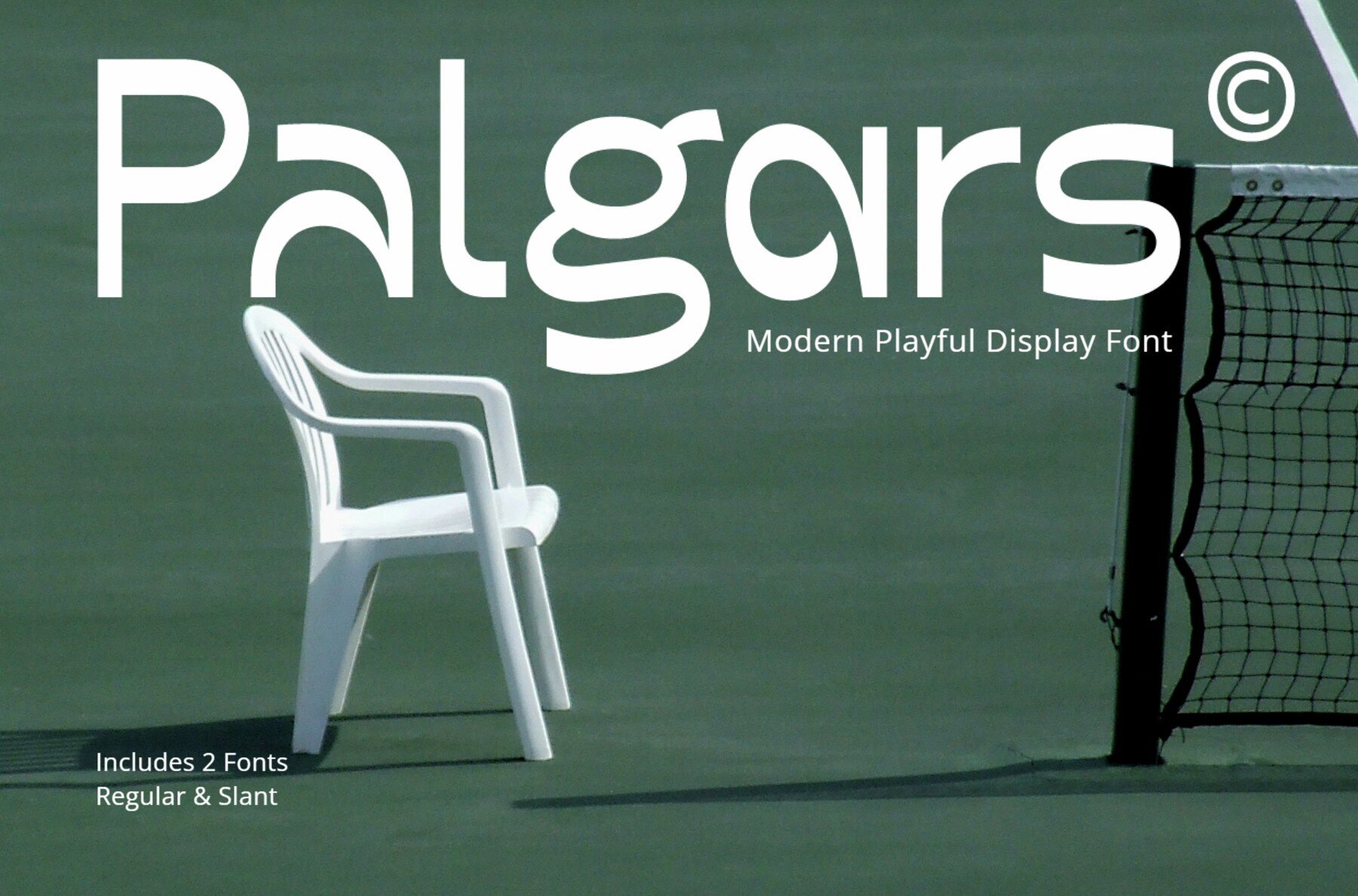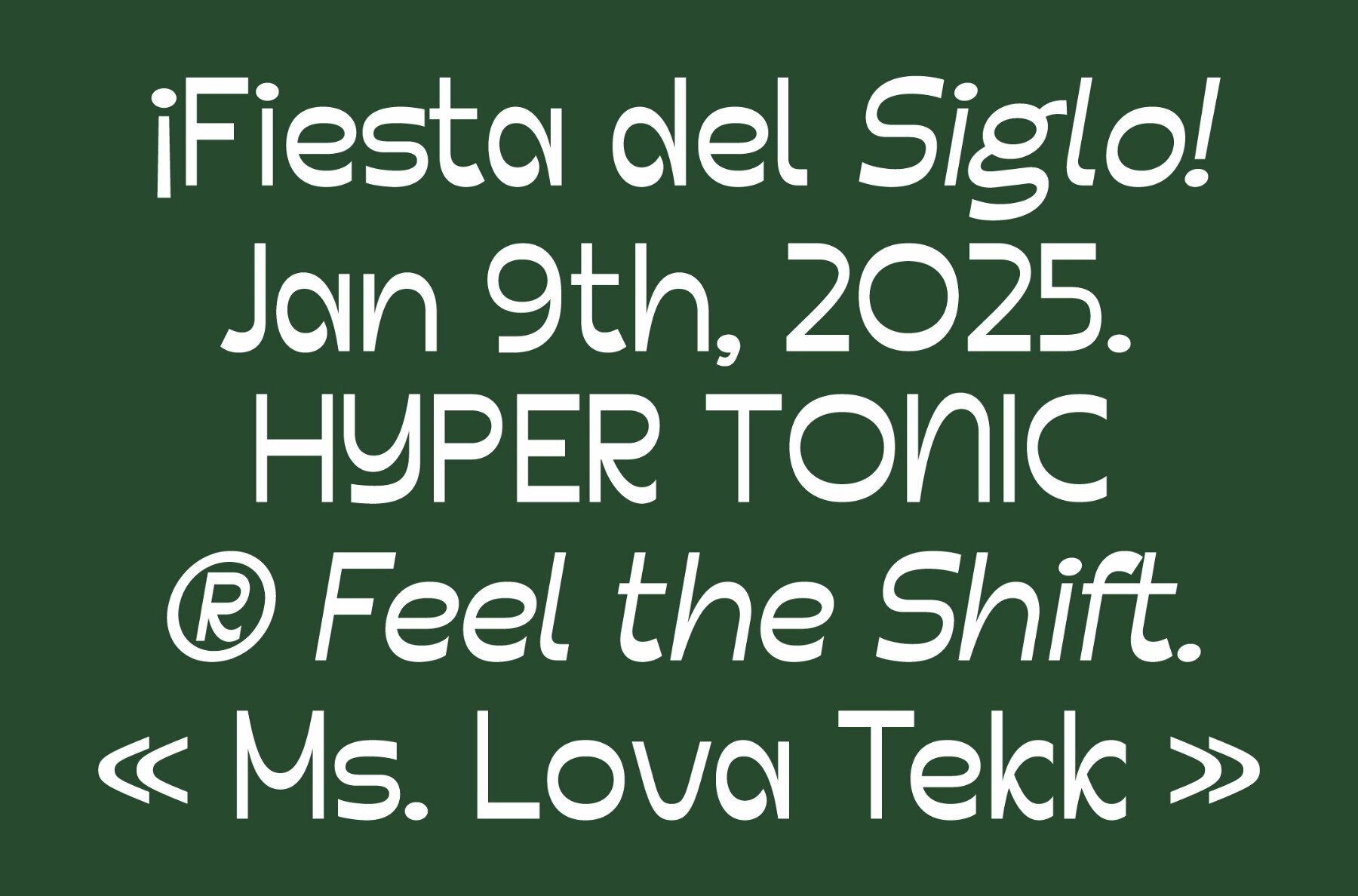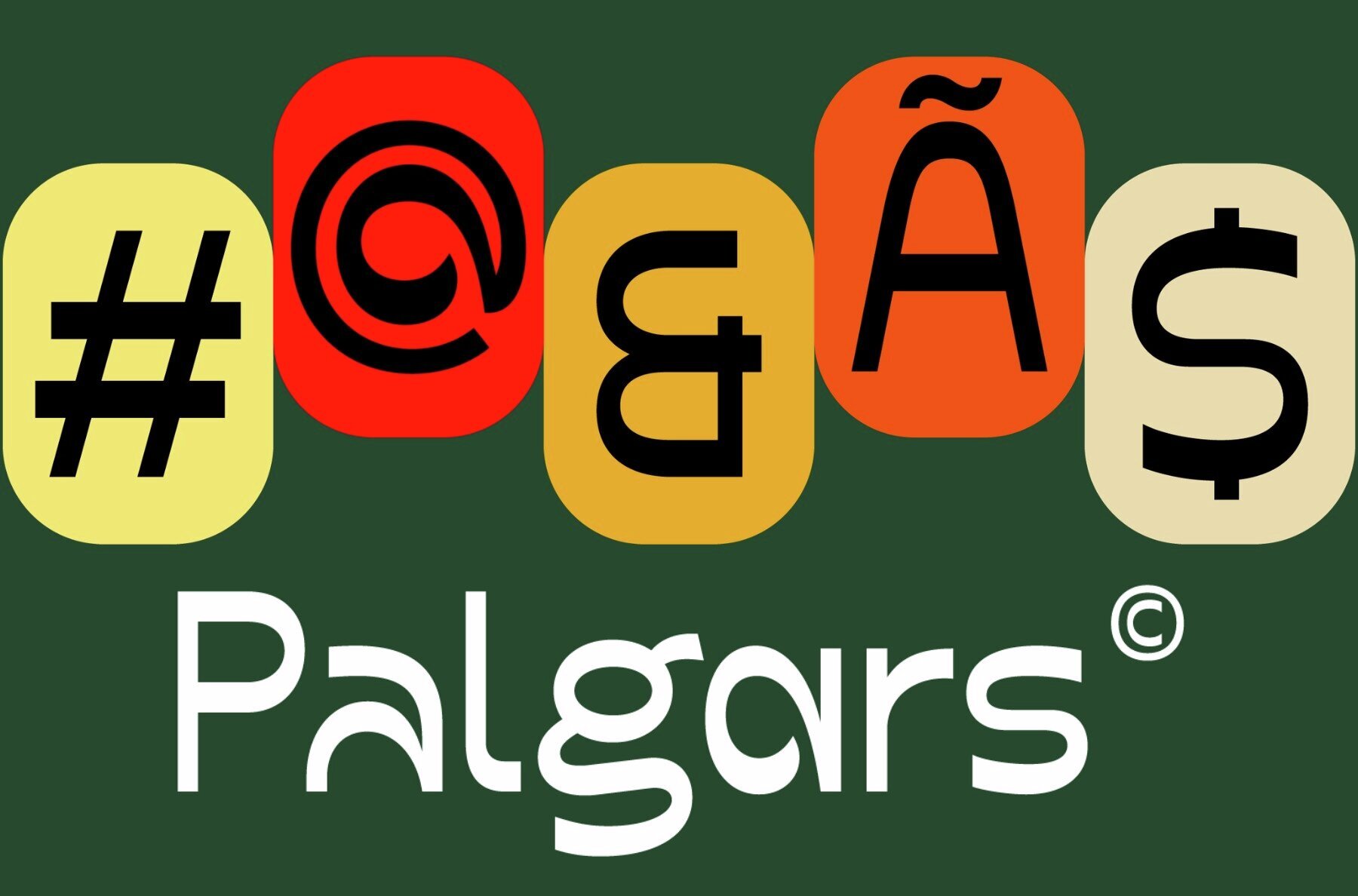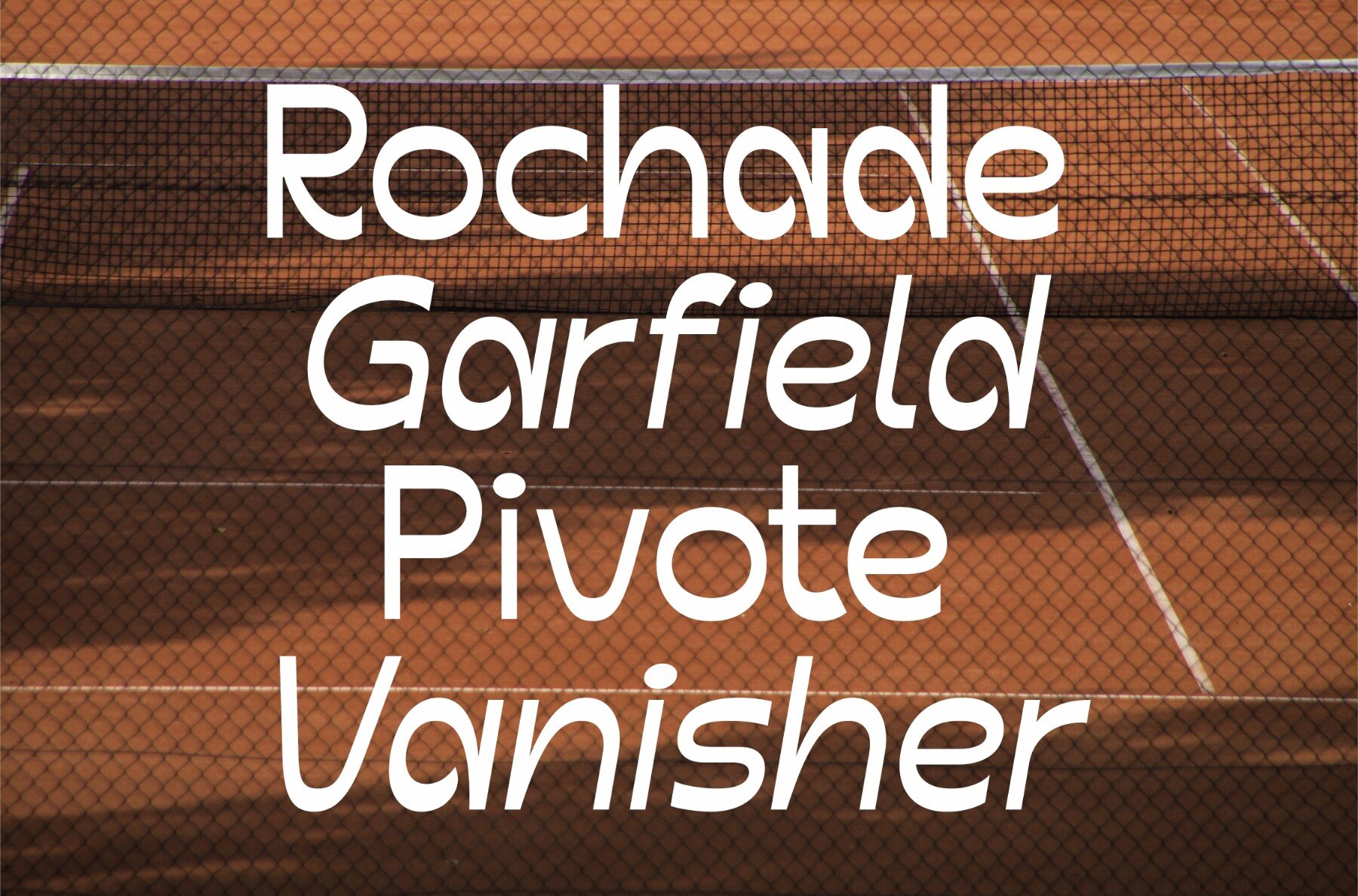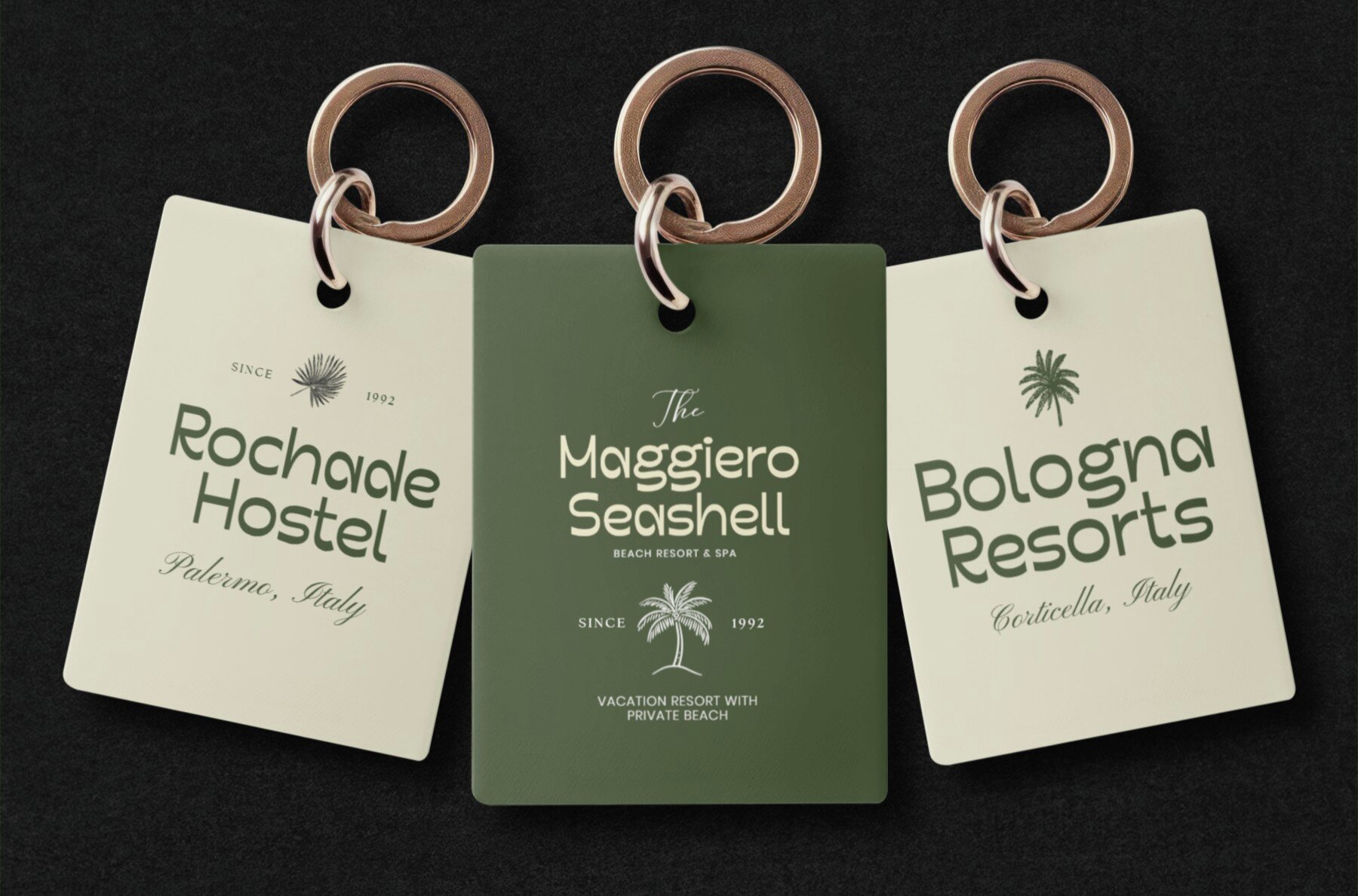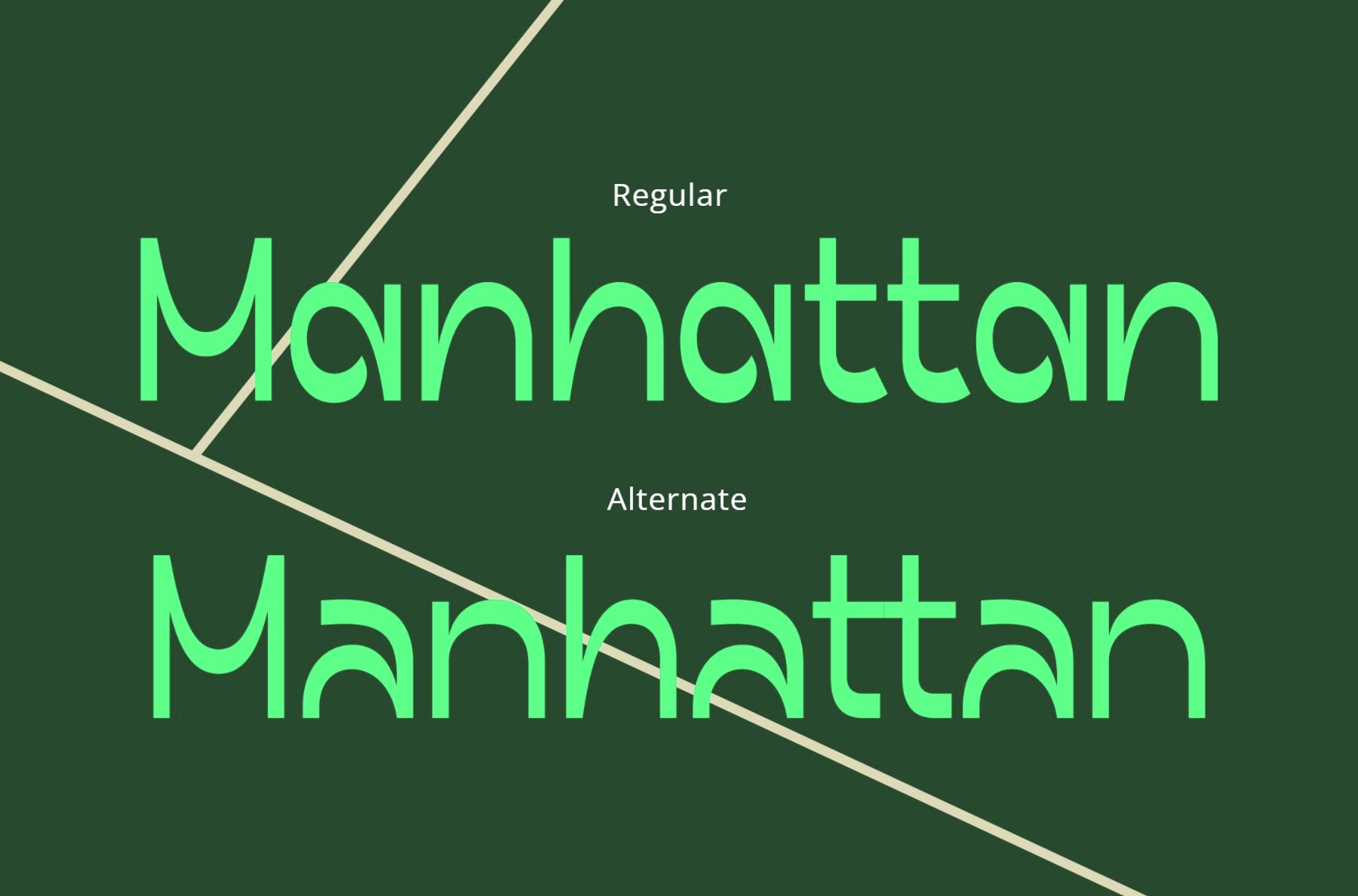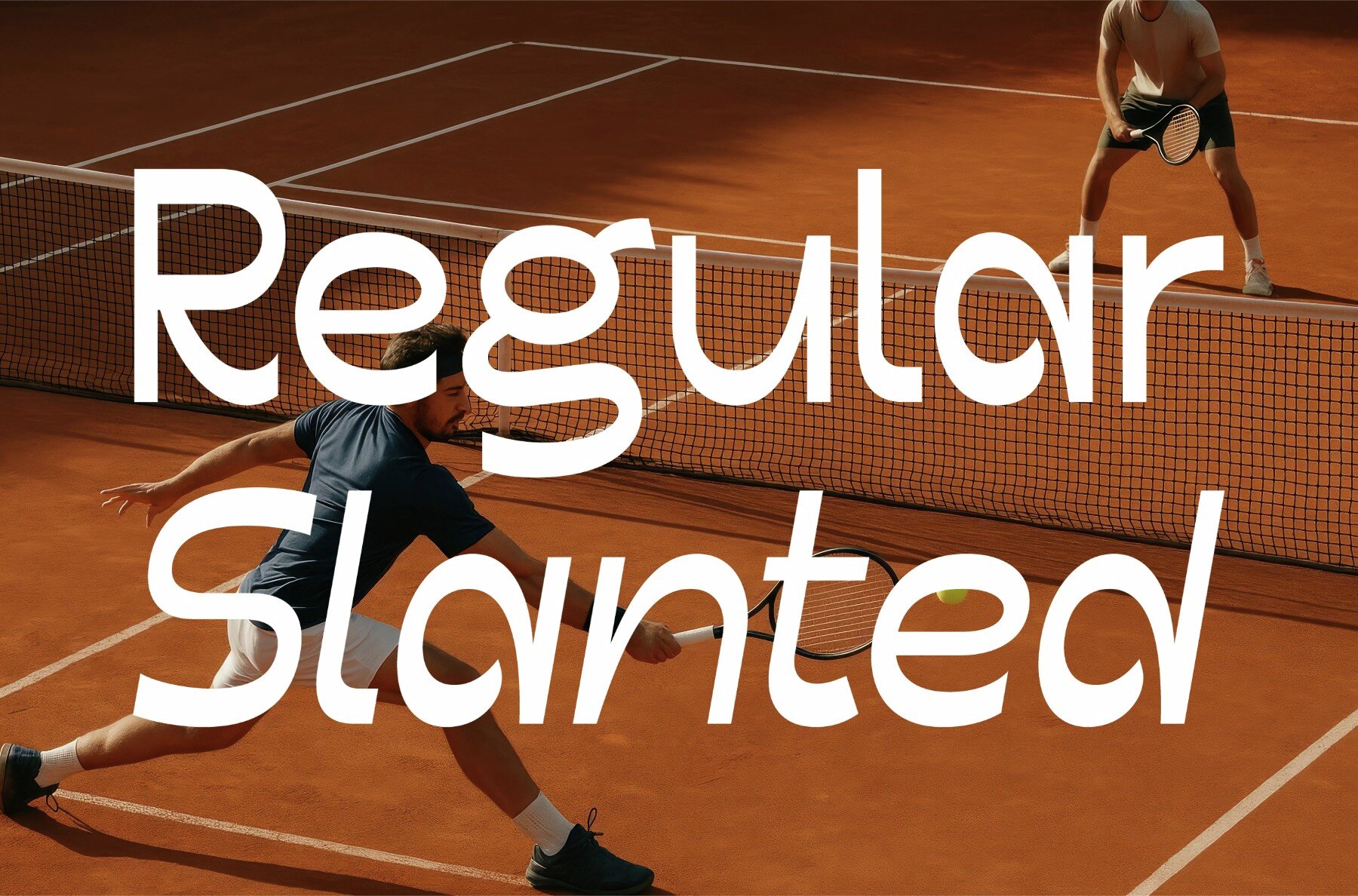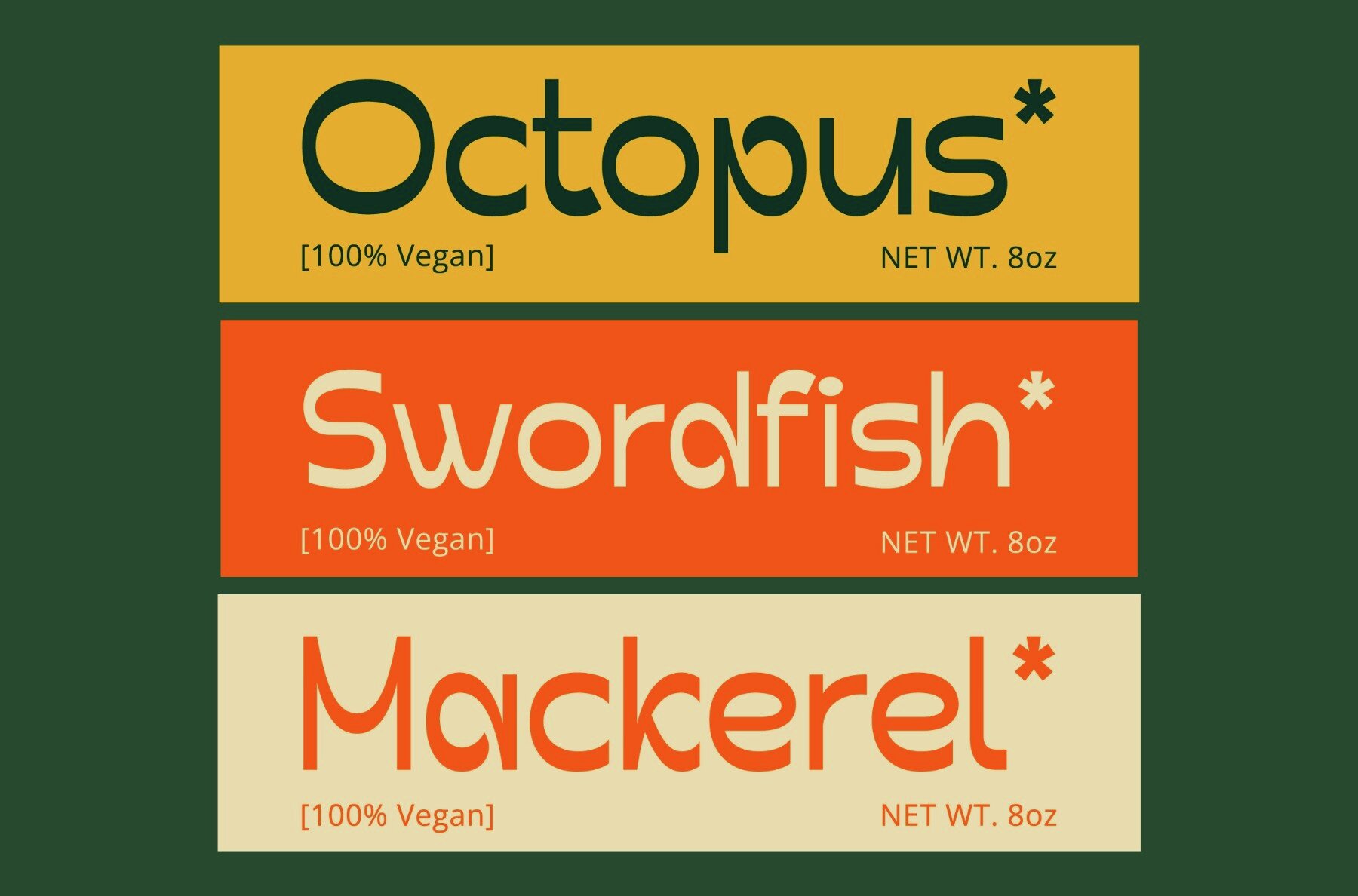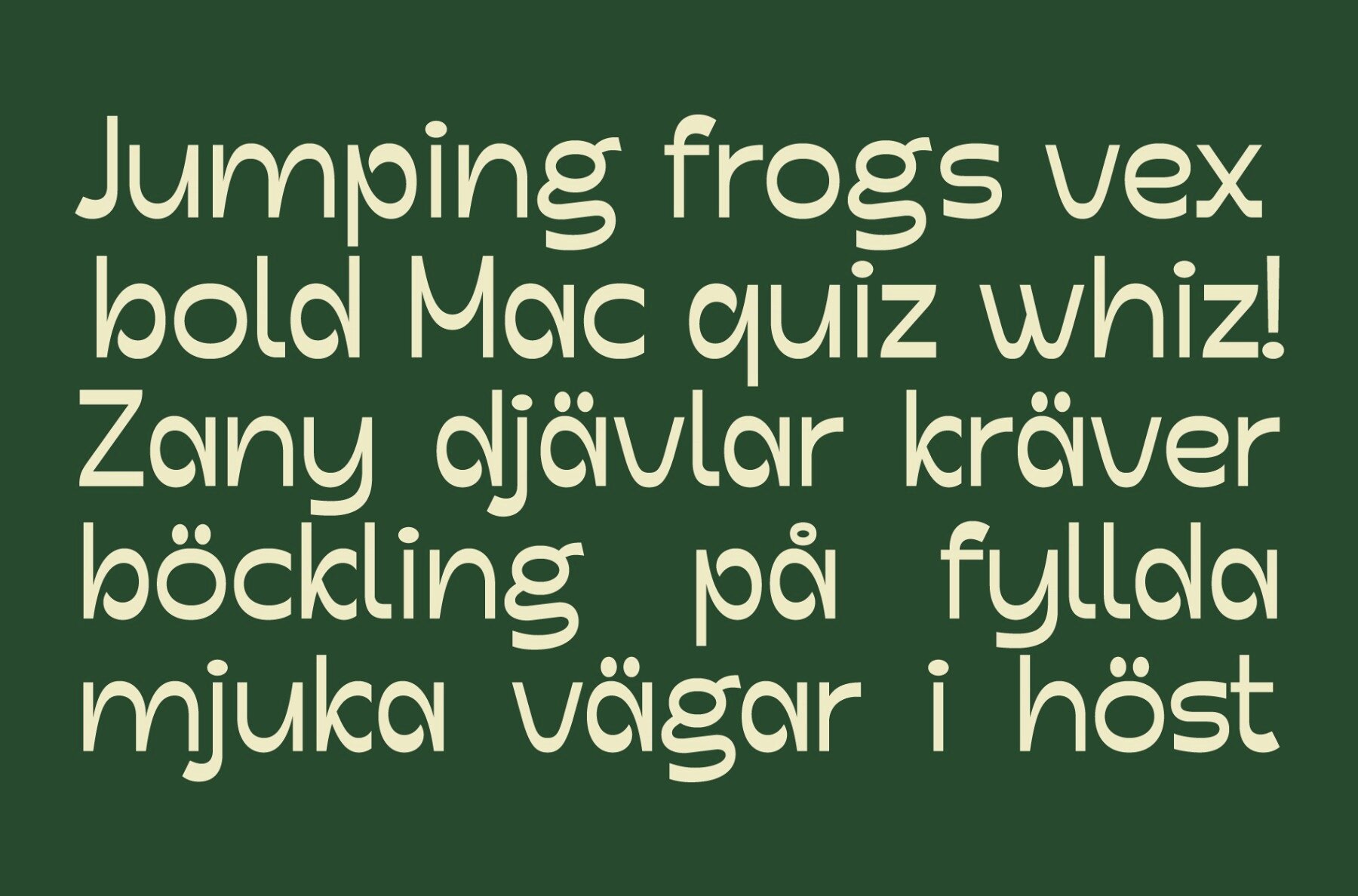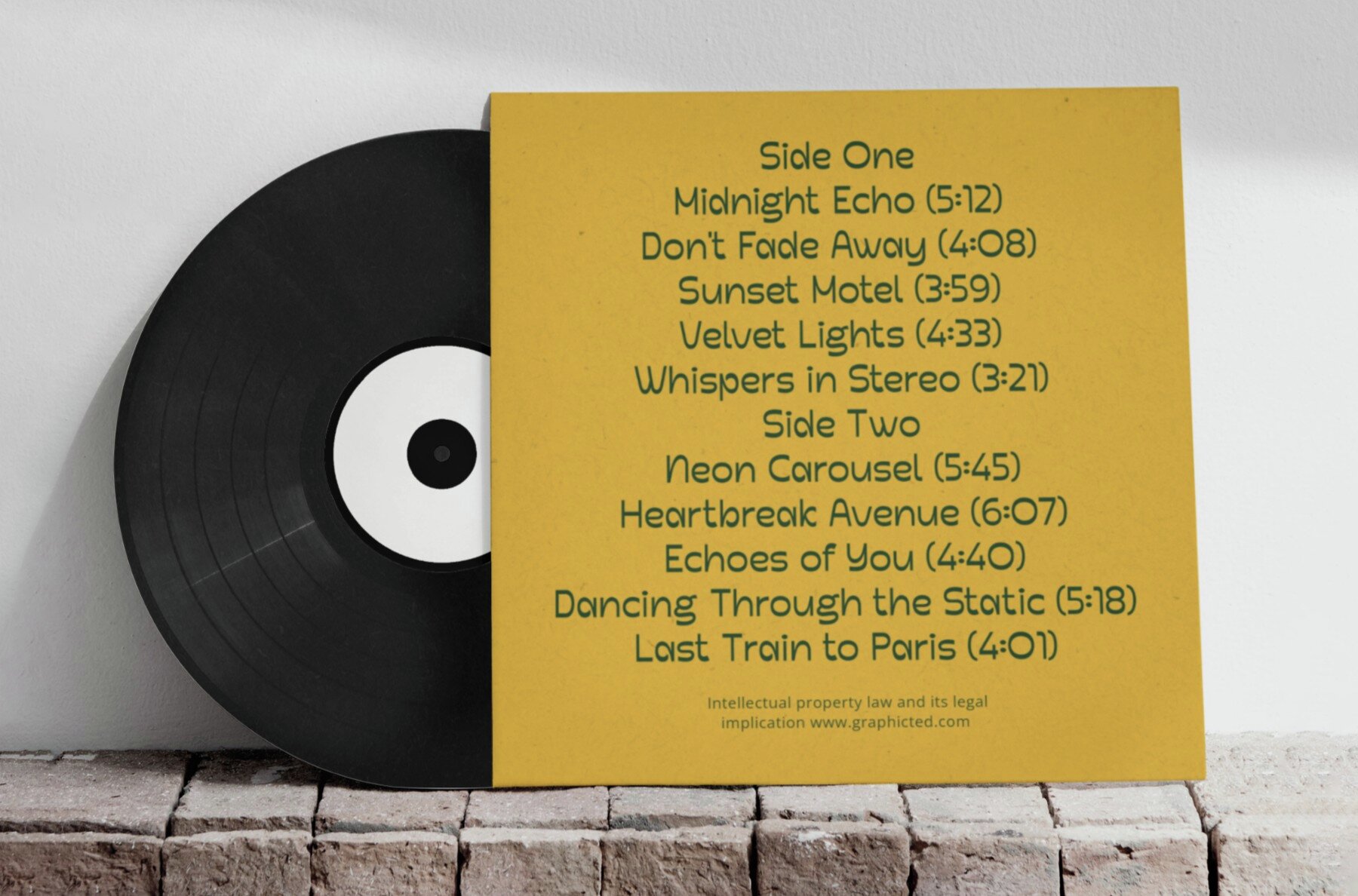
Palgars Font
Palgars is a display font designed to bring personality and charm to your creative projects. Built on a clean sans-serif foundation, Palgars distinguishes itself with unique, flowing letterforms, making it memorable and approachable. This font's clean yet distinctive style excels in various applications like branding, packaging, and poster design. It's your versatile partner for crafting logos, eye-catching headlines, and stunning social media posts. Introduce playful sophistication to your projects with the Palgars Font Duo.Palgars: Modern and Playful Display Font